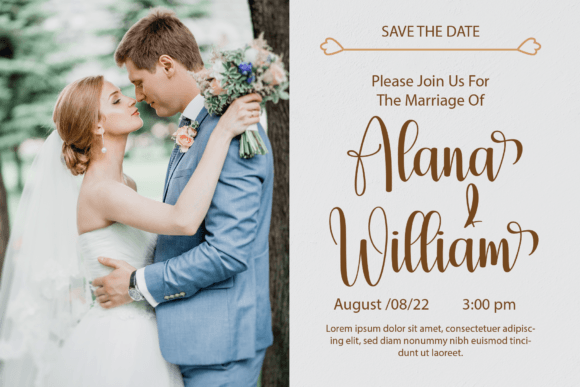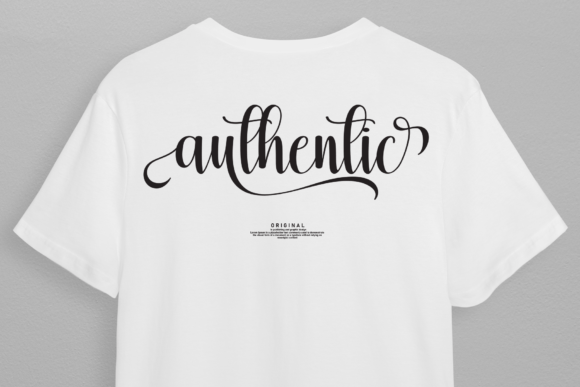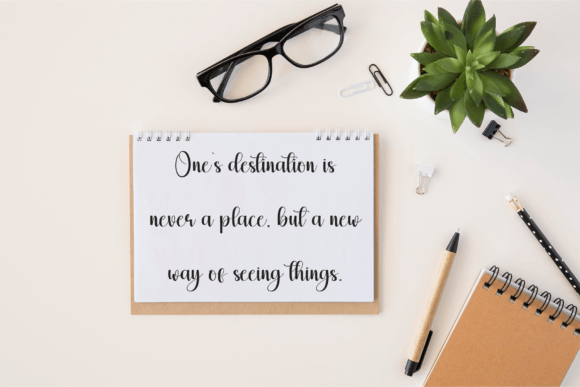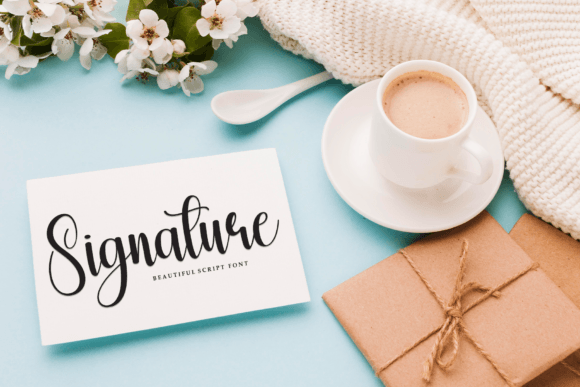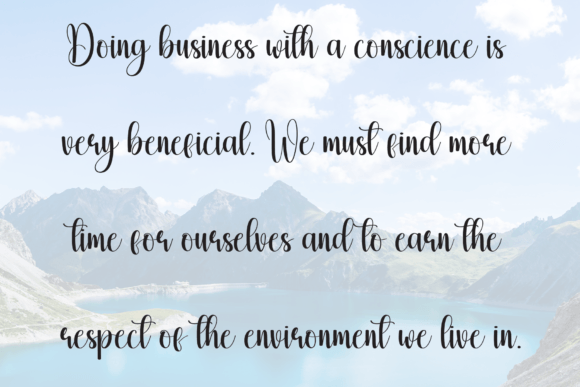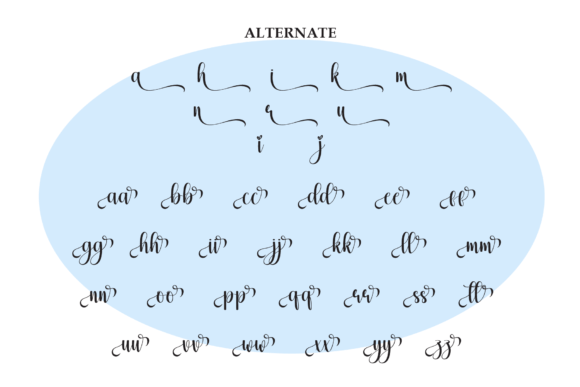
Introduction to Rainsnow Font
Have you ever been brainstorming for the perfect font to give your creative project that extra oomph, only to find yourself scrolling through font collections for what feels like hours? This is exactly how many designers feel when they’re on the hunt for the perfect typography to elevate their design. As a designer, you know the value of a high-quality font that can make all the difference in the final product.
That’s why we’re excited to introduce you to Rainsnow Font, a stunning script font that’s perfect for adding a handwritten touch to your designs. With its elegant and sophisticated look, Rainsnow Font is ideal for wedding invitations, thank you cards, quotes, greeting cards, logos, business cards, and any other design project that requires a touch of whimsy.
What sets Rainsnow Font apart is its versatility and the fact that it’s available for free download, making it a valuable resource for designers of all levels. Whether you’re working on a personal project or a client-based design, Rainsnow Font is sure to impress with its transparent background and beautiful, cursive strokes.
- High-quality, hand-drawn design perfect for creative projects requiring a unique touch.
- Features a transparent background, allowing for seamless integration with any design element.
- Unique, weather-inspired design elements, such as raindrops and snowflakes, add a creative twist to any project.
- Suitable for various design applications, including logos, typography, and graphics, making it a valuable design resource.
Honest Review: Rainsnow Font
I recently stumbled upon the Rainsnow Font, and I must say, it’s a lovely addition to any design project. As a designer, I’m always on the lookout for high-quality fonts that can elevate my creative projects. The Rainsnow Font is a great choice for designers looking for a unique and stylish font.
Here are some aspects that work well: ✨
- High-quality design: The Rainsnow Font is expertly crafted with attention to detail, making it perfect for any design project.
- Transparent background: This feature makes it easy to work with the font, especially when creating graphics with complex backgrounds.
However, I do have some limitations to mention: ⚠️
- Limited character set: The Rainsnow Font has a limited character set, which may not be suitable for projects requiring a wide range of characters.
- Not ideal for body text: Due to its unique design, the Rainsnow Font may not be the best choice for body text, as it can be difficult to read.
Overall, the Rainsnow Font is a great design resource for designers looking to add some personality to their creative projects. While it may have some limitations, its unique design and high-quality craftsmanship make it a valuable addition to any design library.
Rainsnow Font
The Rainsnow Font is a high-quality design resource that can elevate your creative project. With its unique style and transparent background, it’s perfect for adding a touch of elegance to your designs.
To get the most out of the Rainsnow Font, experiment with different font sizes, colors, and combinations. You can also use it in conjunction with other design elements, such as images and graphics, to create a unique and eye-catching design.
The Rainsnow Font is perfect for a variety of design projects, including:
- Presentation and report templates
- Poster and flyer designs
- Logo and branding designs